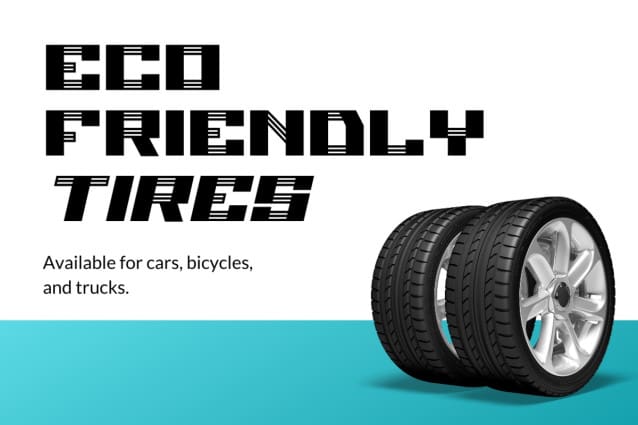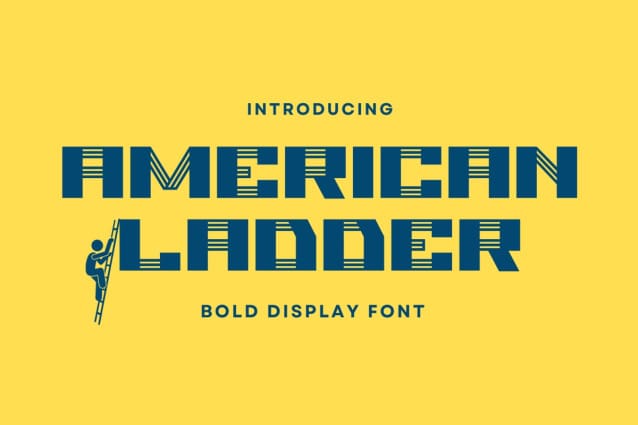
American Ladder Font
American Ladder Font, a bold display font designed to make a strong statement. With its robust and striking letterforms, this font is perfect for grabbing attention and conveying confidence in your designs. Ideal for headlines, posters, logos, and branding materials, “AmericanLadder” ensures your message stands out with authority and impact. Elevate your projects with the powerful presence of “American Ladder,” and let your designs climb to new heights.